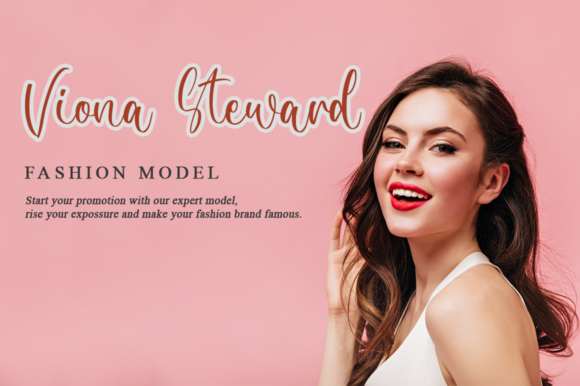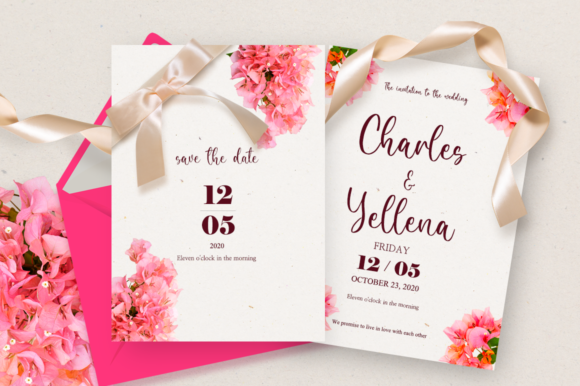
Melodila Font
db-ku.com - Script & Handwritten -- Melodila is a lovely and timeless handwritten font. It is the best choice for creating eye catching logos, branding and quotes. This font is PUA encoded which means you can access all of the glyphs and swashes with ease!